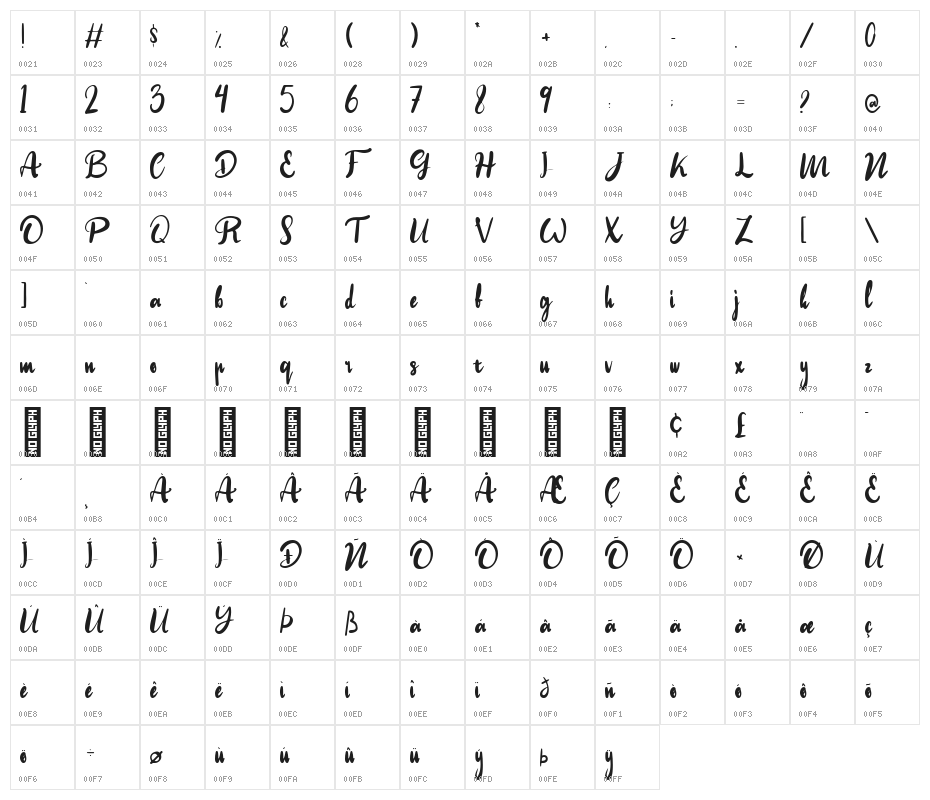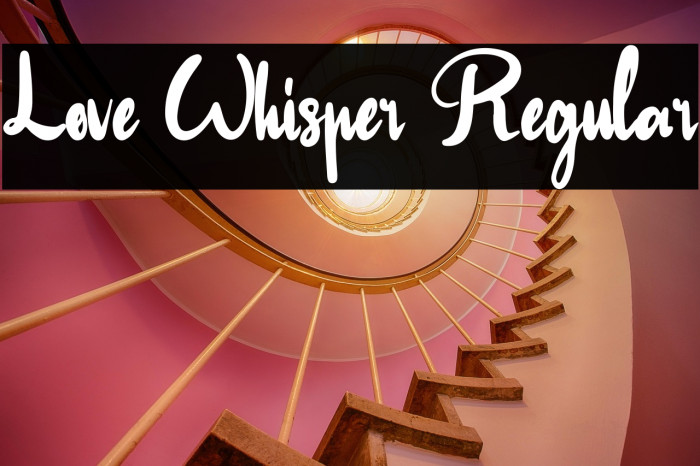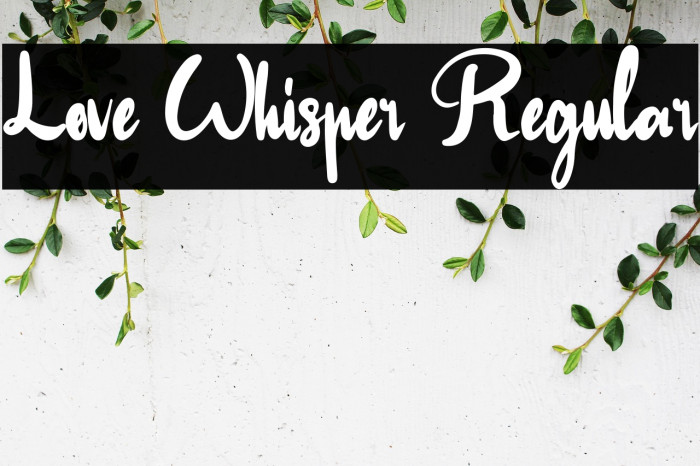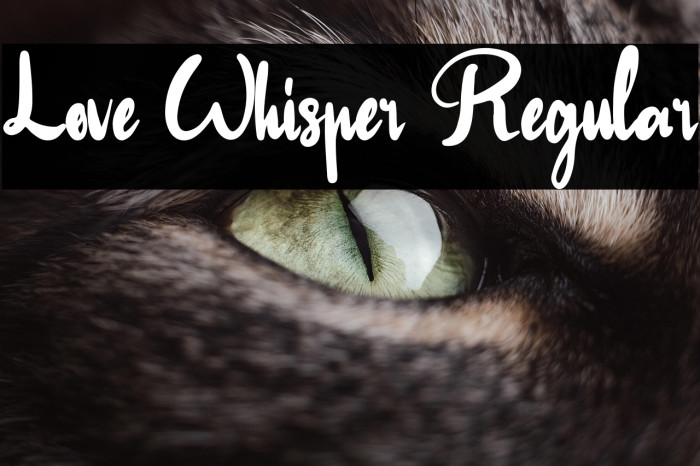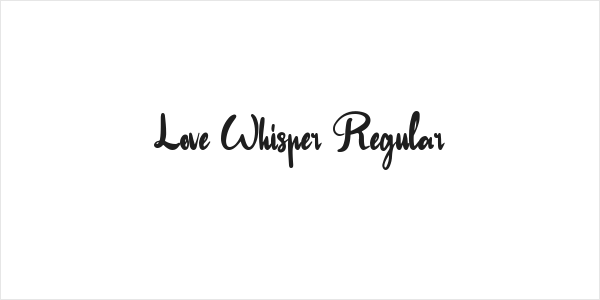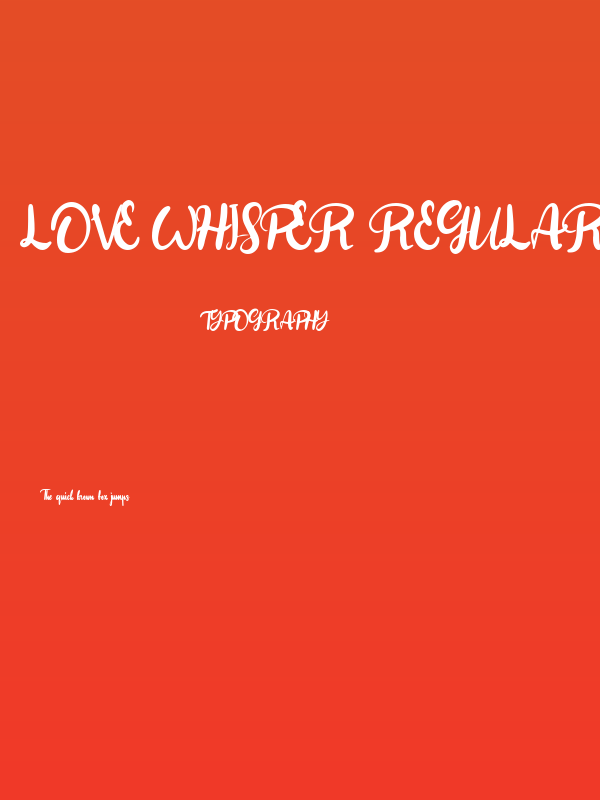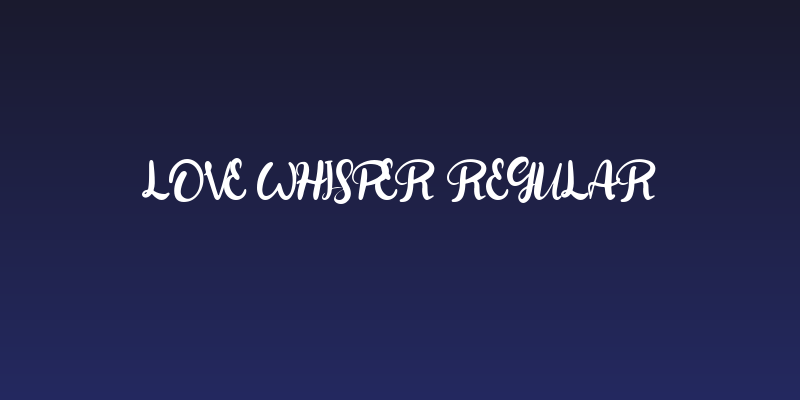
Love Whisper Regular Font
Love Whisper Regular Description
This font exudes a sense of elegance and fluidity, characterized by its cursive script style. The letters are interconnected, creating a seamless flow that is both graceful and dynamic. The uppercase letters are bold and prominent, while the lowercase letters maintain a consistent rhythm with slightly exaggerated curves. The numerals are distinct and maintain the same flowing style, ensuring readability. Special characters are integrated seamlessly, adding versatility to the font. The overall appearance is sophisticated, making it suitable for projects that require a touch of refinement.
Overall StyleElegant
Use CaseLogos, Invitations, Branding
Proposed ProjectsIdeal for wedding invitations, greeting cards, branding, and elegant logo designs.